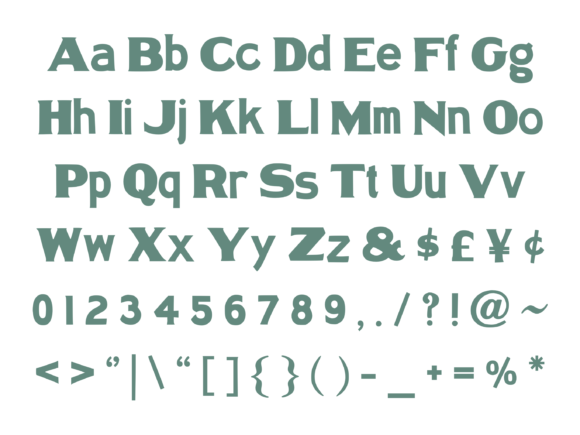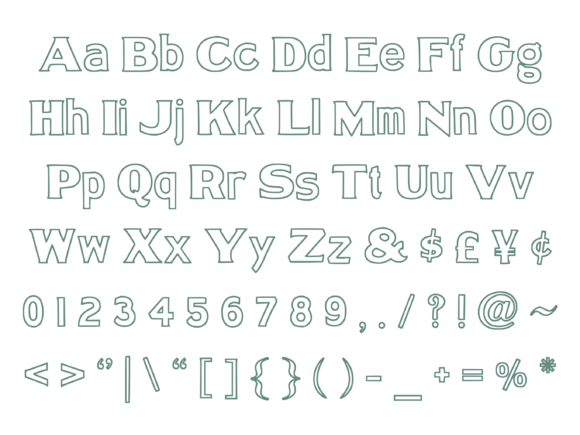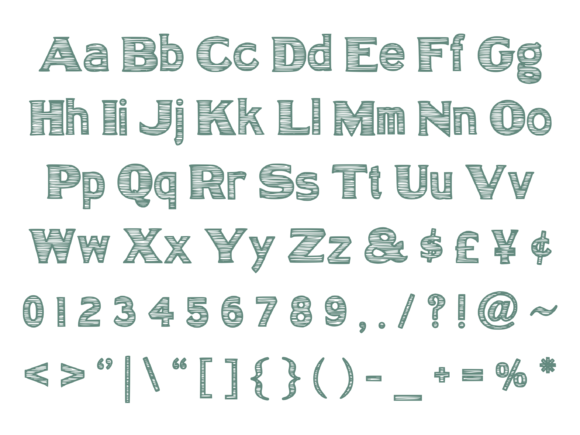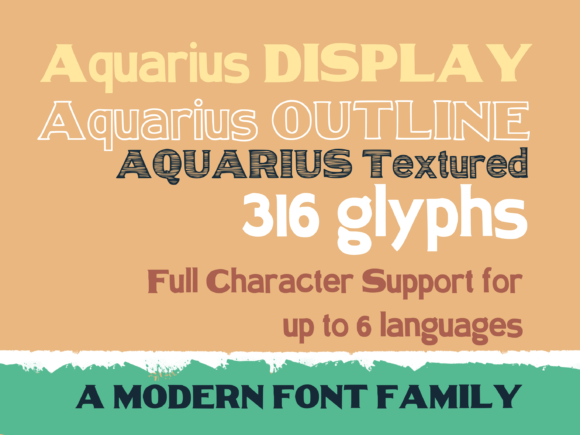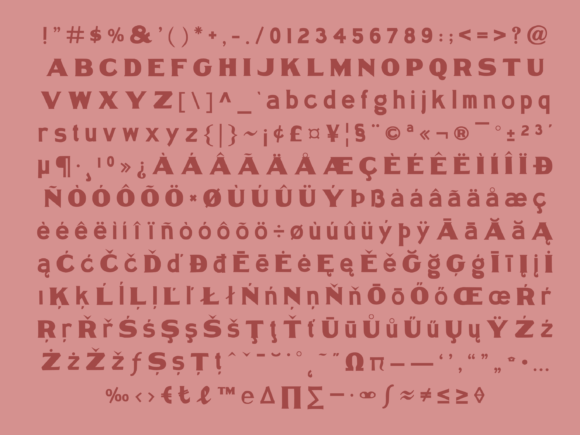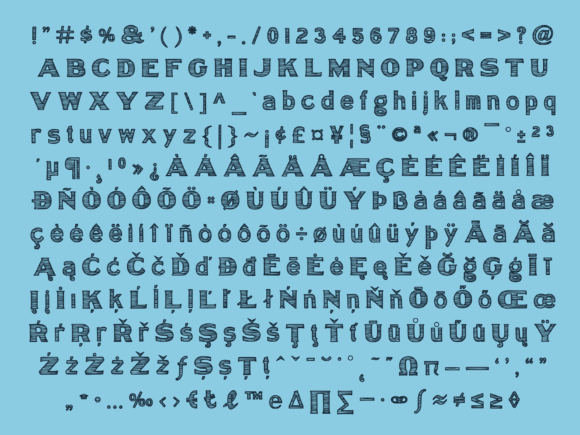
Aquarius Font: A Modern Typeface for Creative Expression
In the world of typography, fonts play a crucial role in conveying messages, expressing emotions, and creating visual identities. For designers, crafters, and creative enthusiasts, finding the right font can make all the difference in bringing their ideas to life. One such font that has gained attention in recent times is the Aquarius Font, a modern font family that offers a unique blend of style, versatility, and aesthetic appeal.
Introducing Aquarius Font
Aquarius is a modern font family consisting of 3 typefaces, each with its own distinct character while maintaining the overall signature look of Aquarius. This font family is designed to cater to a wide range of creative needs, from digital design projects to print materials, and everything in between. Whether you’re a professional designer or a DIY enthusiast, Aquarius Font offers a fresh and exciting way to express yourself through typography.
Key Features of Aquarius Font
• Modern and Fresh Design: Aquarius Font boasts a modern and fresh design that is perfect for creative projects that require a contemporary look and feel.
• 3 Unique Typefaces: The font family consists of 3 typefaces, each with its own unique aesthetic, allowing designers to experiment with different styles and moods.
• Highly Versatile: Aquarius Font is highly versatile and can be used for a wide range of applications, including digital design, print materials, branding, and more.
• Easily Readable: The font is designed to be easily readable, making it perfect for body text, headings, and titles.
Exploring the 3 Typefaces of Aquarius Font
Each typeface in the Aquarius Font family has its own distinct character, allowing designers to choose the one that best fits their creative vision. Here’s a brief overview of each typeface:
• Aquarius Regular: The regular typeface is the foundation of the Aquarius Font family, offering a clean and modern design that is perfect for body text and headings.
• Aquarius Bold: The bold typeface is ideal for creating emphasis and adding a touch of drama to your designs. It’s perfect for headlines, titles, and other attention-grabbing elements.
• Aquarius Italic: The italic typeface adds a touch of elegance and sophistication to your designs, making it perfect for creative projects that require a more refined look and feel.
Use Cases for Aquarius Font
Aquarius Font is a highly versatile font family that can be used for a wide range of creative projects, including:
Aquarius Font is a modern font family that offers a unique blend of style, versatility, and aesthetic appeal. With its 3 typefaces, highly versatile design, and easily readable font, Aquarius Font is perfect for creative projects that require a fresh and exciting typography solution. Whether you’re a professional designer or a DIY enthusiast, Aquarius Font is definitely worth checking out.